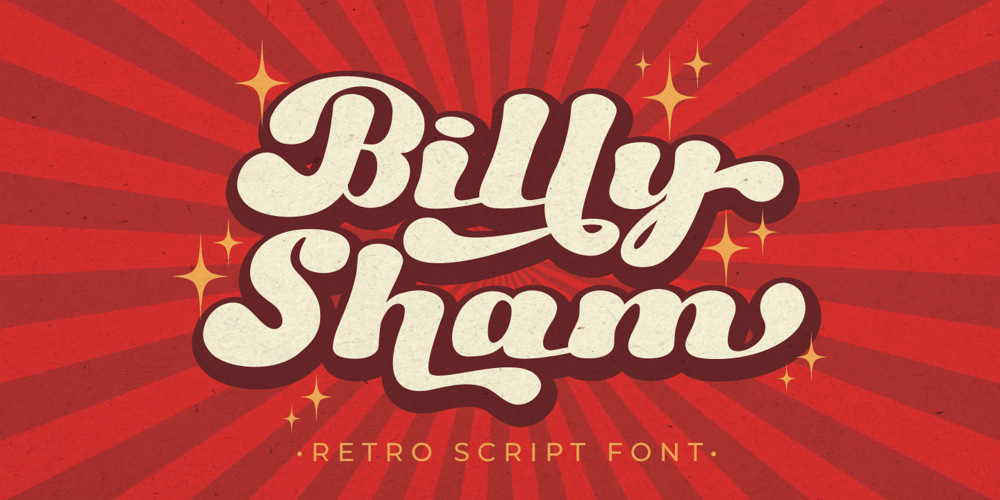
Billy Sham Font Family was designed by Putra Novembria Candra Kusuma and published by Putracetol. Billy Sham contains 2 styles and family package options. Introducing a new retro font called “Billy Sham“. Inspired from retro typography and lettering in the 70’s and 80’s combine with bold typography style. With a total of 534 glyphs with 359 alternate, you can make letter combinations for lettering with a lot of options.Come with open type feature ( a lot of alternates and end swash), its help you to make great lettering.Billy Sham best uses for Logotype, heading,cover, poster, logos, quotes, product packaging, header, merchandise, social media & greeting cards and many more.This font is also support multi language.To access the alternate glyphs, you need a program that supports OpenType features such as Adobe Illustrator CS, Adobe Photoshop CC, Adobe Indesign and Corel Draw.